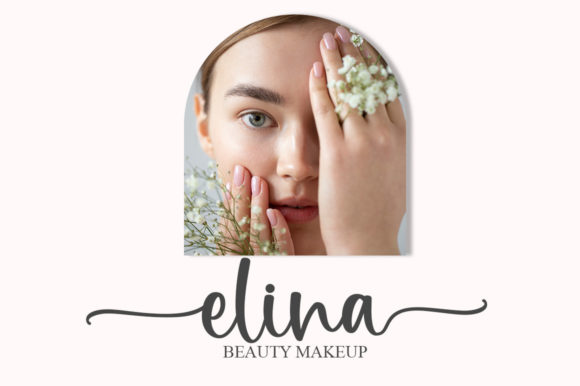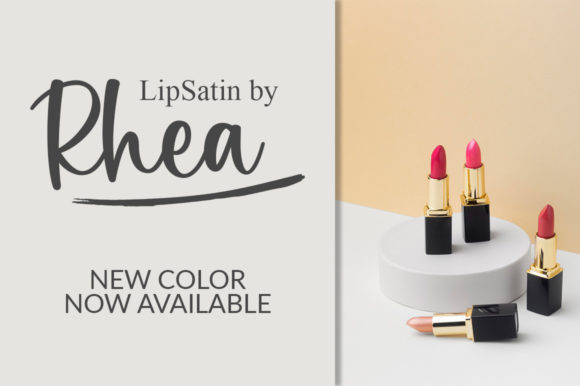
Orchid Garden Font
db-ku.com - Script & Handwritten -- Orchid Garden is a delicate and refined script font that emanates sophistication and elegance. Its stylish alternates and ligatures make this font the perfect match for any project.